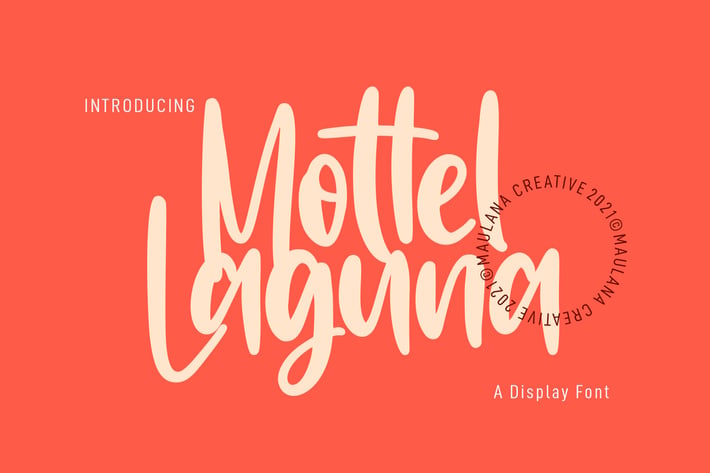
Mottel Laguna Display Font
Mottel Laguna is a handwritten display font. With light contrast stroke, upright and fun character with a bit of ligatures. To give you an extra creative work. Mottel Laguna font support multilingual more than 100+ language. This font is good for logo design, Social media, Movie Titles, Books Titles, a short text even a long text letter and good for your secondary text font with sans or serif. Make a stunning work with Mottel Laguna font.